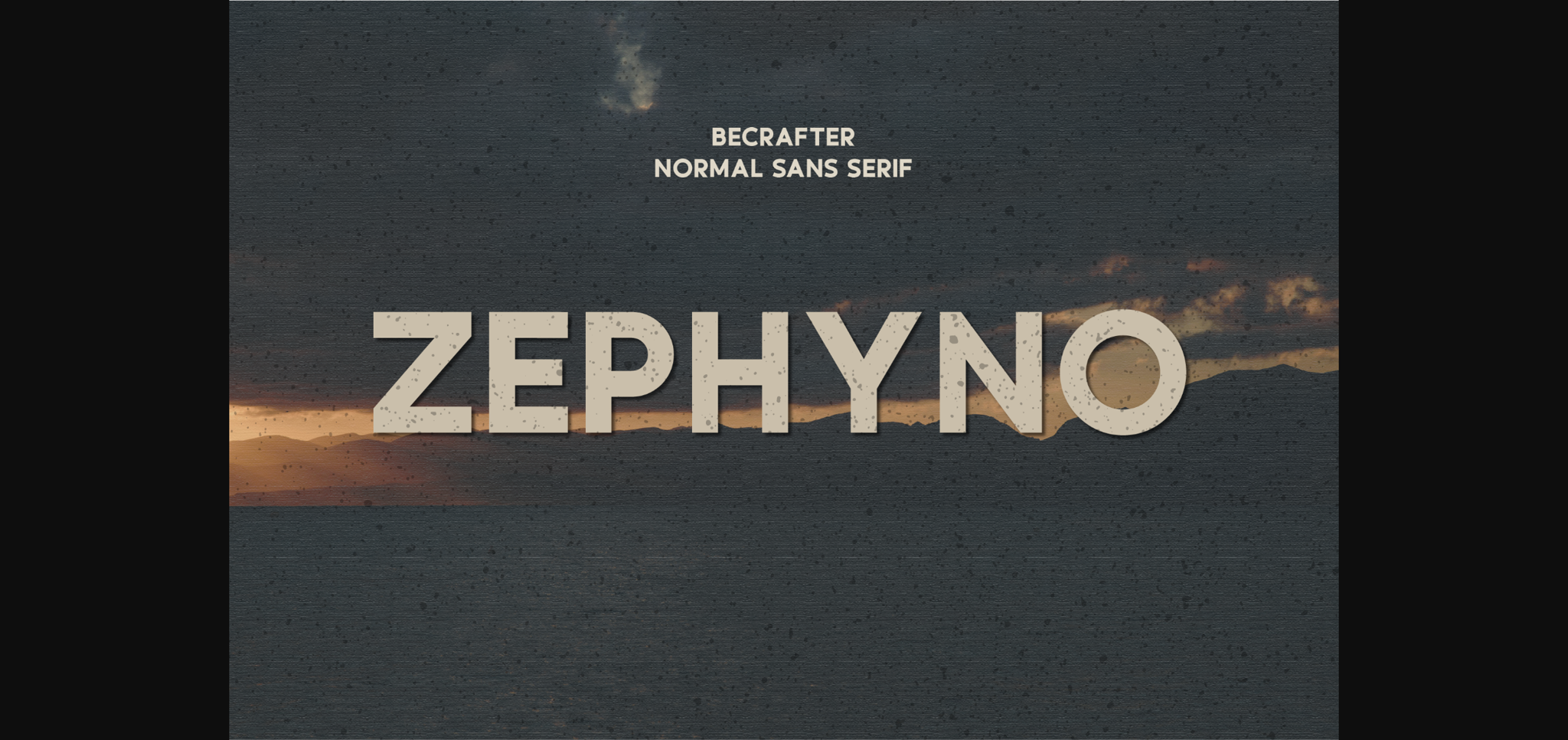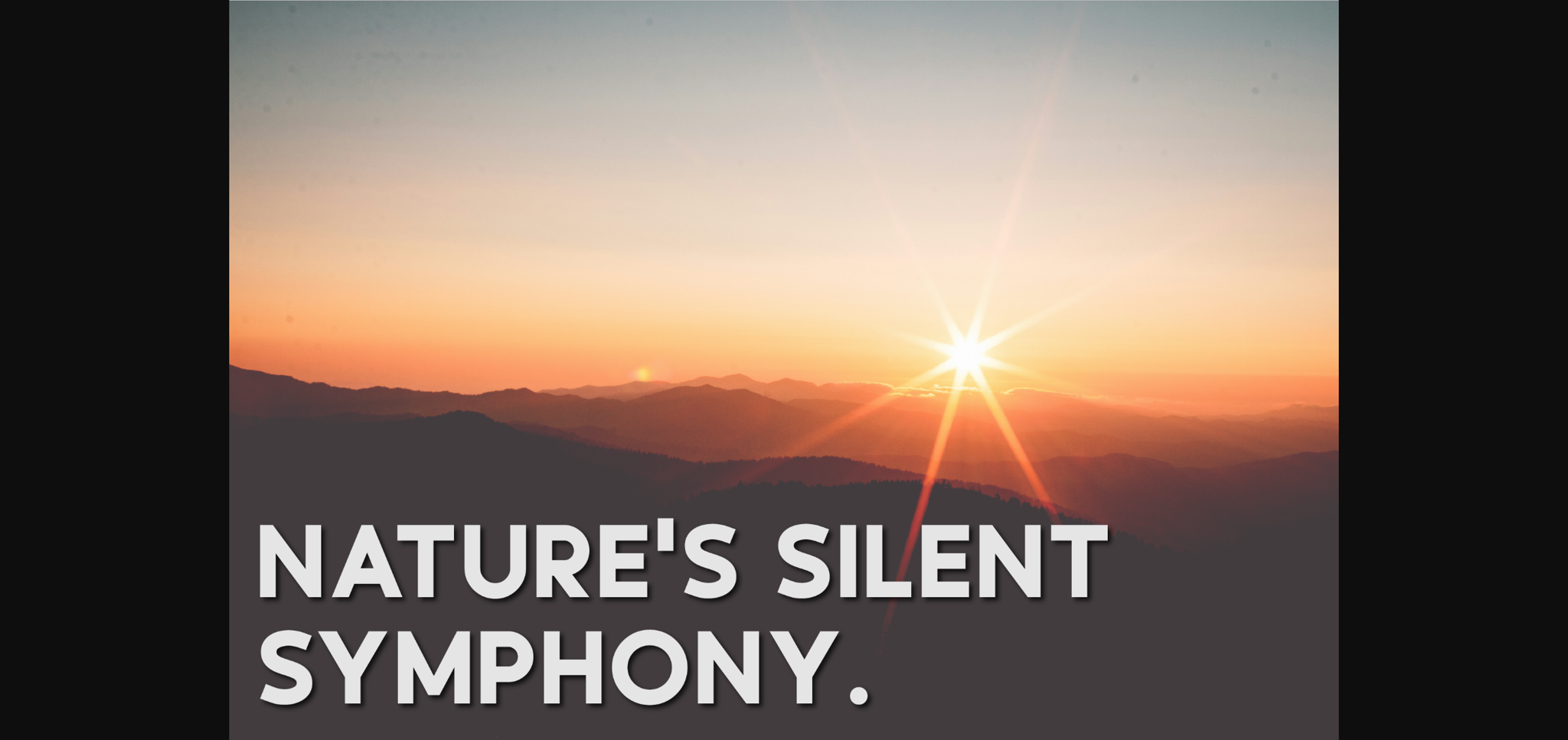
About Zephyno Font
Discover the power of Zephyno, a bold typeface that encapsulates strength and versatility in each of its distinctive uppercase letters. Crafted with a vintage sans-serif aesthetic, Zephyno is a perfect union of the old and the new, designed to stand out in any setting. Explore its wide utility, from creating captivating logos to casting an unforgettable impression on printed materials. The Zephyno package also incorporates numbers and punctuation, allowing you to add the finishing touches and nuances to your textual masterpiece. Experience the unique blend of elegance and dynamism that is Zephyno!